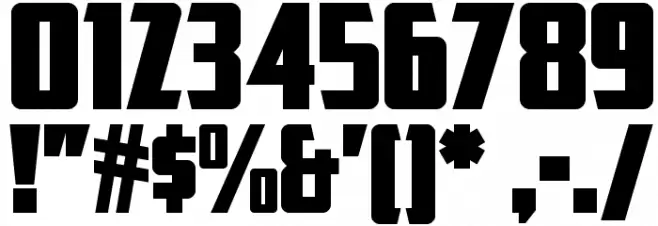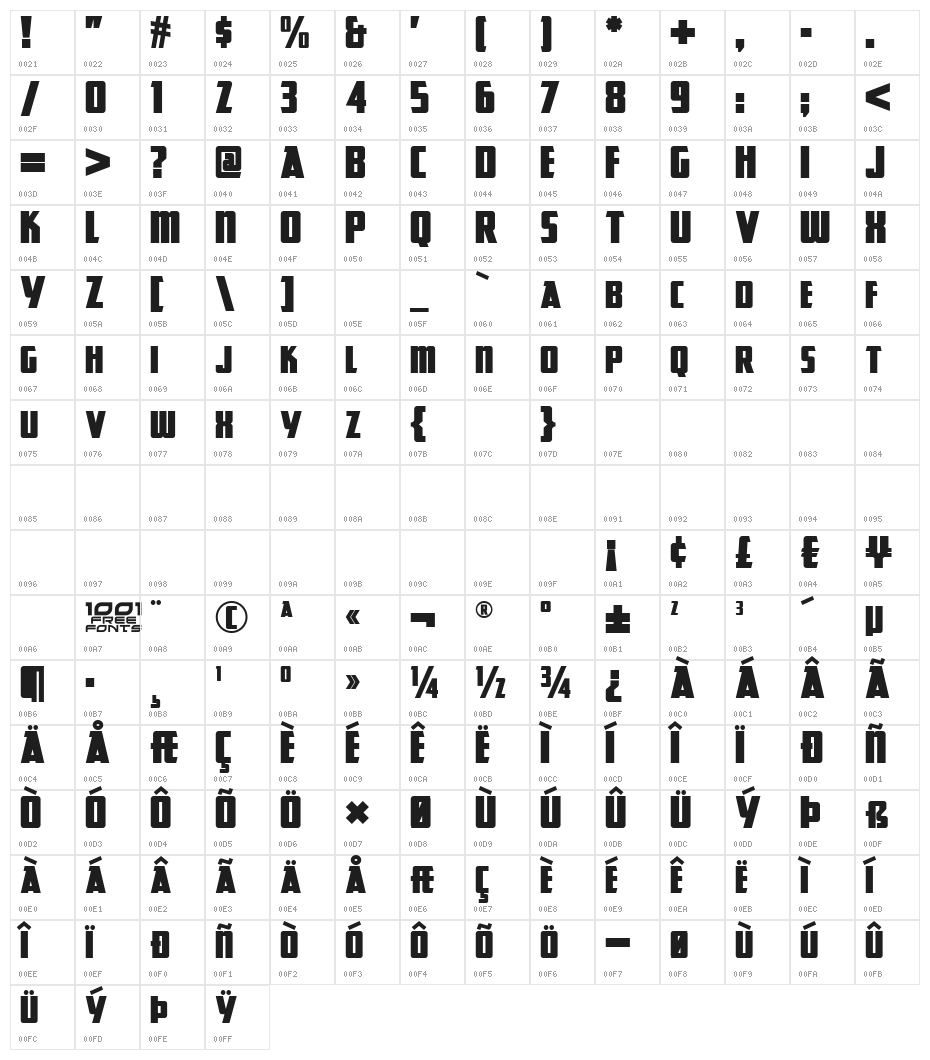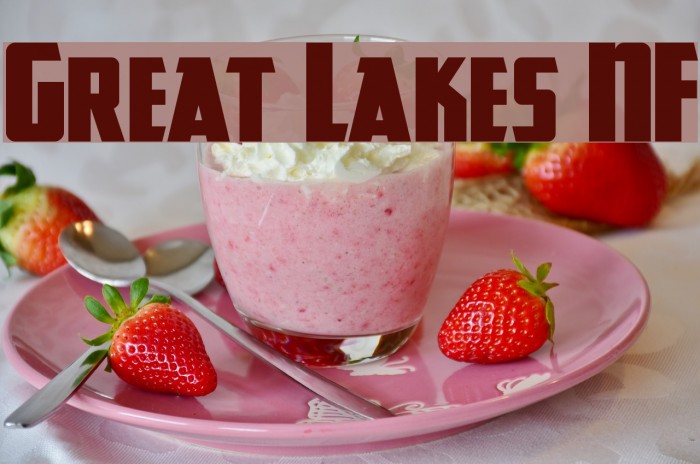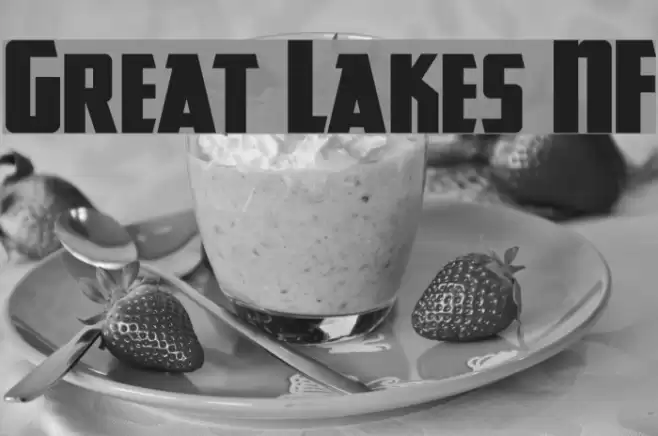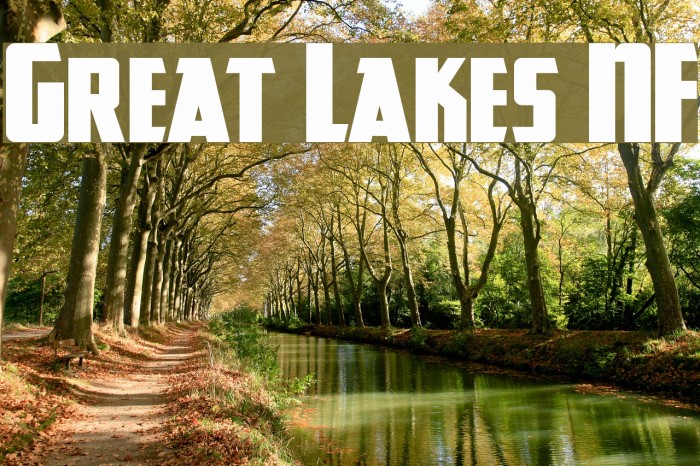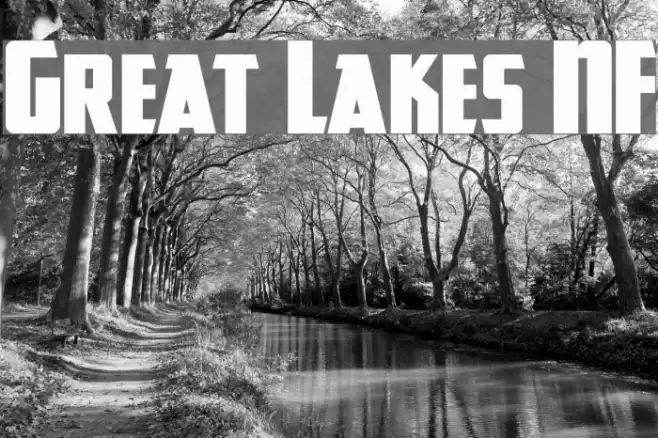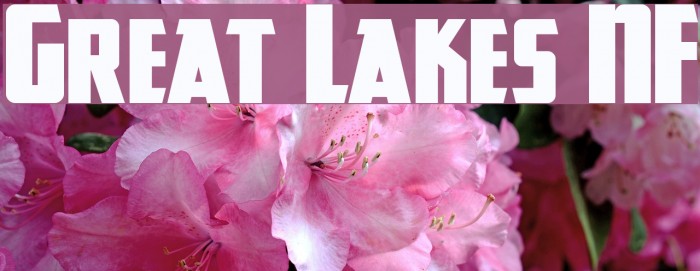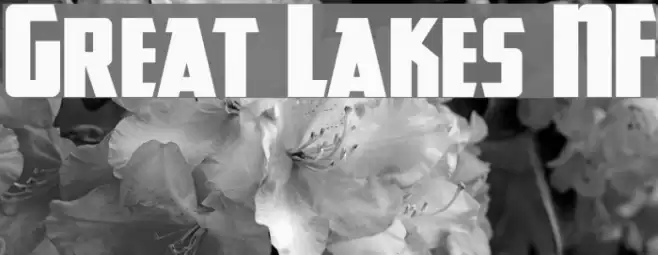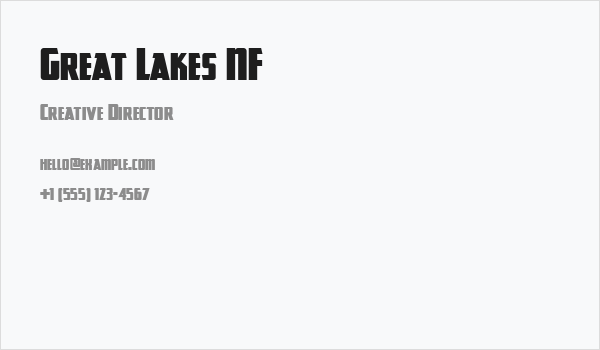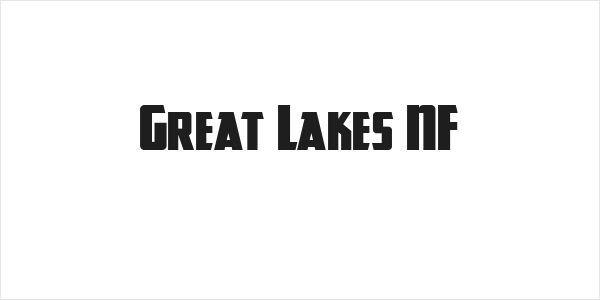
Great Lakes NF Font
Great Lakes NF Description
This font features a bold and impactful design with strong geometric shapes and a uniform thickness throughout each character. The uppercase letters are particularly striking, with a blocky and robust appearance that commands attention. The numerals and special characters maintain this bold style, ensuring consistency across all elements. The font's design is reminiscent of industrial or retro styles, making it suitable for projects that require a strong visual presence.
| Overall Style | Retro, Industrial |
| Proposed Projects | Ideal for branding, posters, headlines, and any design requiring a bold statement. |